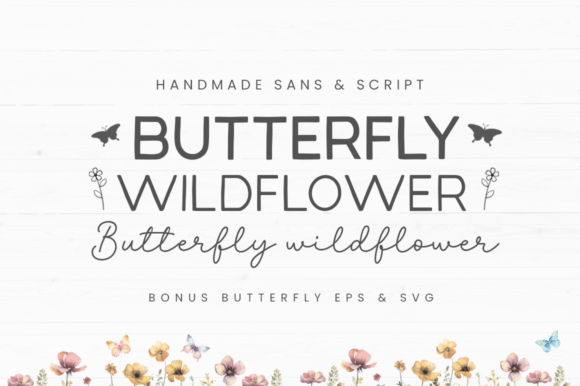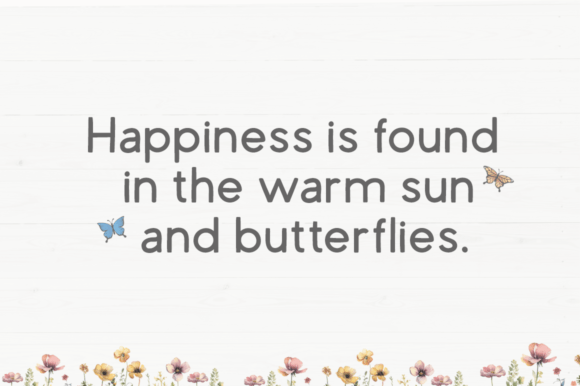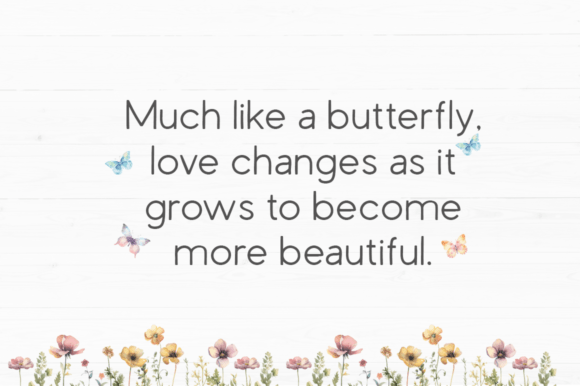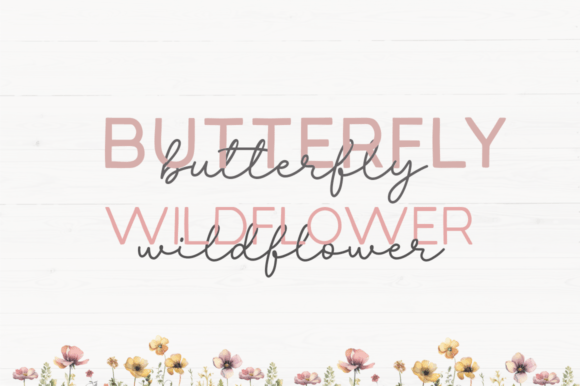
Butterfly Wildflower Font
About the Butterfly Wildflower Font
Meet Butterfly Wildflower Font, a stunning font that brings a touch of elegance and professionalism to any design. Introducing Butterfly Wildflower, a font trio featuring thin and bold sans serif styles along with a script font. This versatile set also includes a bonus of 25 butterfly EPS-SVG files. Unleash your creativity to make your designs even more beautiful with this font. Perfect for logos, signs, Cricut projects, mugs, bags, and much more!
Butterfly Wildflower’s bold sans serif works best in headlines, short impactful statements, and logos where its strong character shines. The script font is ideal for branding elements requiring a touch of elegance, such as signature lines or short taglines. However, avoid using it for extended body text or UI elements; its decorative nature compromises readability in smaller sizes or continuous blocks of text.
The thin sans serif offers a good balance, suitable for subheadings or short supporting text within a larger design. Pairing it with a classic serif like Garamond for a touch of sophistication or a geometric sans serif like Futura for a modern feel will create strong visual contrast. The script font pairs well with clean, simple sans serifs to avoid visual clutter.
This font trio projects a playful yet sophisticated personality, best suited for brands targeting a youthful, creative audience. It’s perfect for projects with a whimsical or artistic bent, such as fashion, stationery, or children’s products. Avoid using it for projects requiring a strictly formal or corporate feel.
Butterfly Wildflower Font Usage Examples
Butterfly Wildflower Font Example